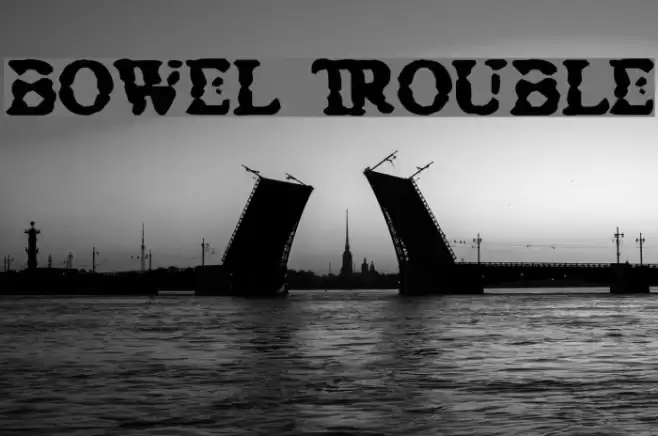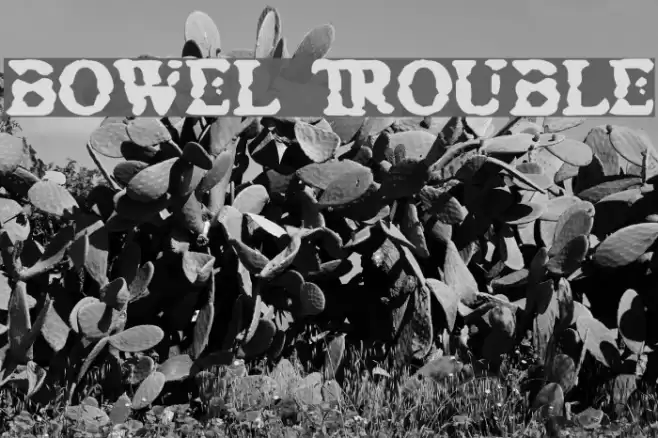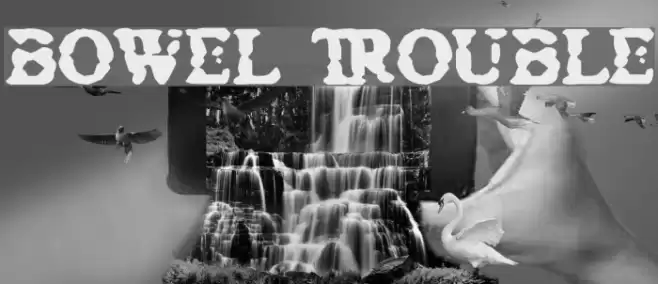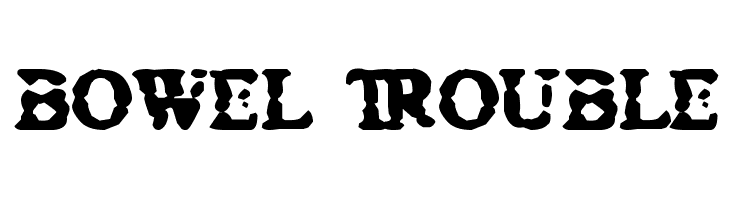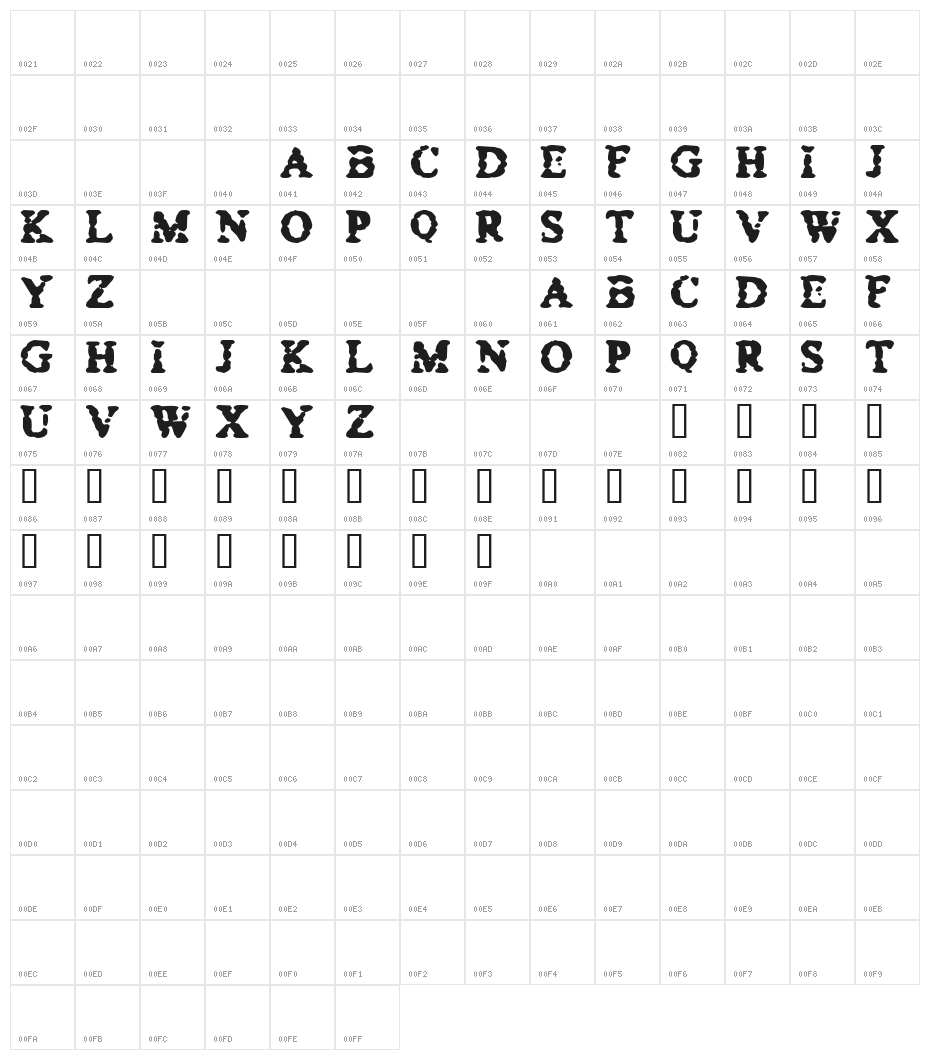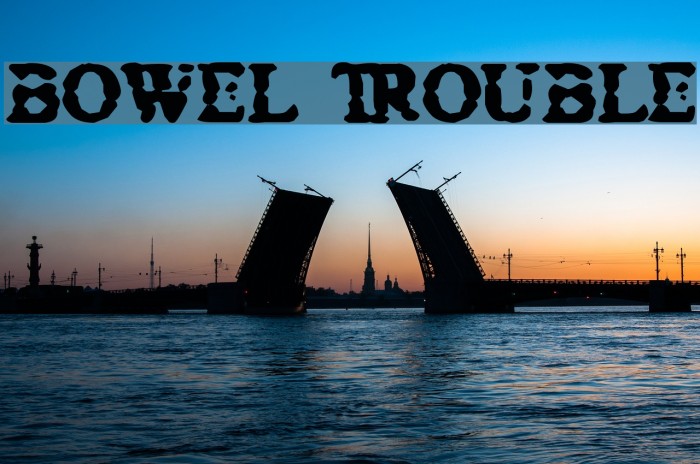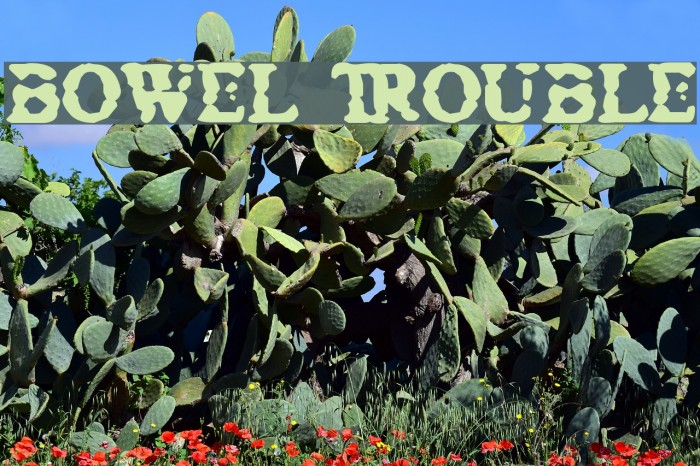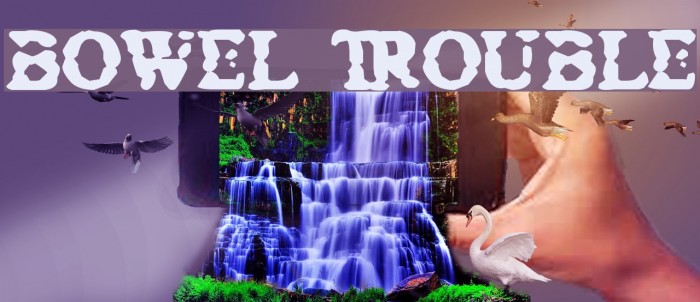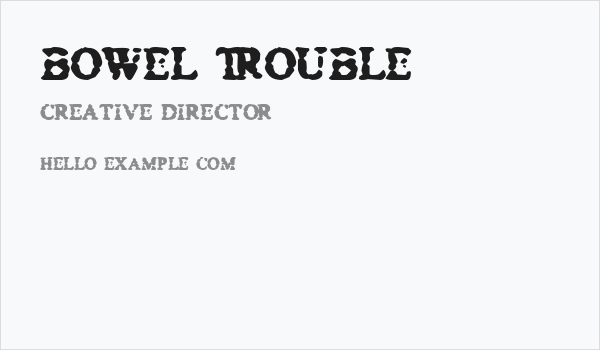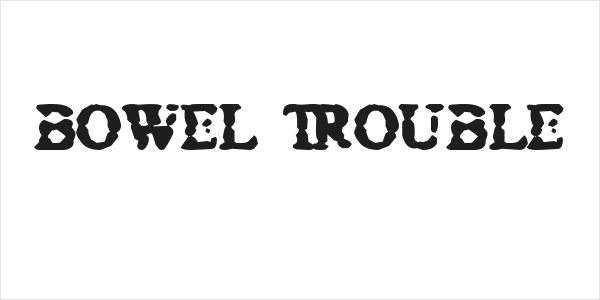
Bowel Trouble Font
Bowel Trouble Description
This font features a highly decorative and unique style, characterized by irregular, blob-like shapes that form each letter. The design gives an organic, almost liquid appearance, making it stand out with its bold and artistic flair. The uppercase letters are consistent in their playful distortion, creating a cohesive yet unconventional look. This font is perfect for projects that require a distinct and eye-catching typeface, such as posters, album covers, or themed event invitations. Its artistic nature makes it less suitable for body text but ideal for creative headlines and titles.
A bold, decorative font with an organic, liquid-like appearance from Typewriter fonts.
- Proposed Projects: Ideal for posters, album covers, themed event invitations, and creative headlines.